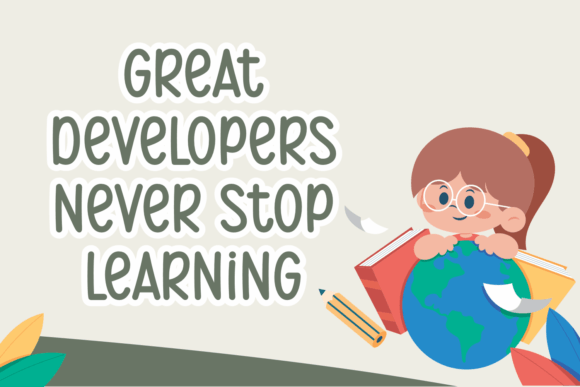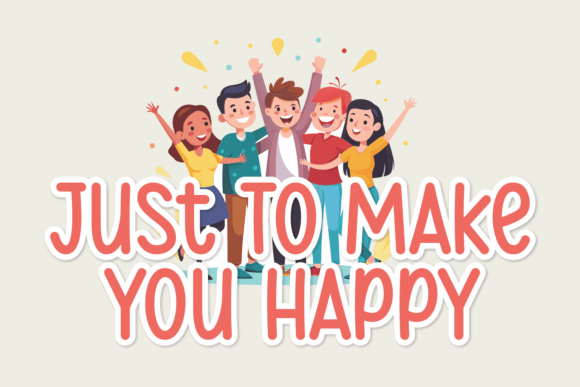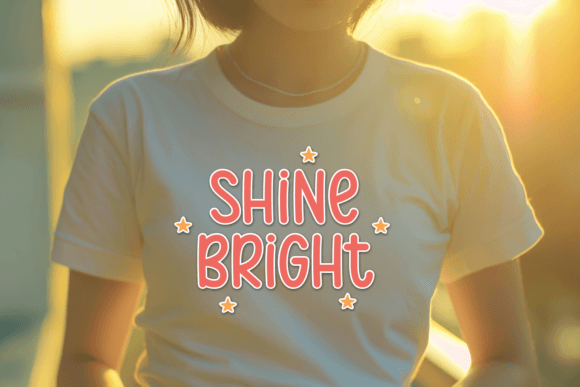
The Moment of Creative Spark
Remember that instant when you stumble upon a font that makes your design idea shine? For many creatives, it’s a moment of pure excitement and inspiration. You’re browsing through a vast library of fonts, and suddenly, you come across a handwritten font that screams ‘use me’!
Meet the Awesome Forever Font, a fun and playful handwritten font designed to bring any text to life. Whether you’re crafting a promotional design, creating a social media post, or writing a storybook, this font is sure to add a personal touch and make your content stand out. With its versatility and charm, the Awesome Forever Font is a valuable addition to any designer’s toolkit.
What sets the Awesome Forever Font apart is its ability to evoke emotions and connect with your audience on a deeper level. By using this font in your designs, you’ll be able to convey your message with a unique voice and style that resonates with your target audience.
Awesome Forever Font Key Features
- Font Family: Awesome Forever is a unique, hand-drawn font designed for creative and artistic purposes.
- Unique Characteristics: Features intricate, hand-drawn illustrations and ornaments that can be used to create visually striking designs.
Designer Review: Awesome Forever Font
First off, I love the playful vibe of the Awesome Forever Font. ✨ The font’s rounded edges and whimsical feel make it perfect for creating eye-catching headings and titles. It’s definitely a great choice for projects that require a touch of personality.
Another thing I appreciate about this font is its versatility. ✨ It comes in a range of weights and styles, allowing you to customize the look to suit your design needs. Whether you’re creating a bold, eye-catching display or a more subtle, elegant text-based design, Awesome Forever Font has got you covered.
While Awesome Forever Font is an awesome addition to any designer’s toolkit, there are a few limitations to keep in mind. ⚠️ The font may not be the best choice for projects that require a more serious or professional tone. Additionally, some users may find the font’s rounded edges and playful feel to be too cutesy or over-the-top.
- Limited to more casual or creative projects
- Might be too playful or cutesy for some audiences
Overall, I think Awesome Forever Font is a great choice for designers looking to add some personality and whimsy to their projects. While it may not be the best choice for every project, it’s definitely worth considering for those that require a more playful and eye-catching feel.
* Use the font for titles and headings to add a touch of elegance.
The Awesome Forever Font is a popular, modern sans-serif font, but designers may be looking for alternatives that offer unique characteristics or styles. Here are a few options: